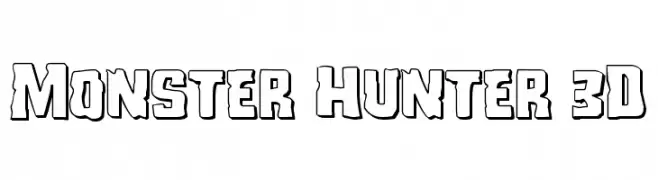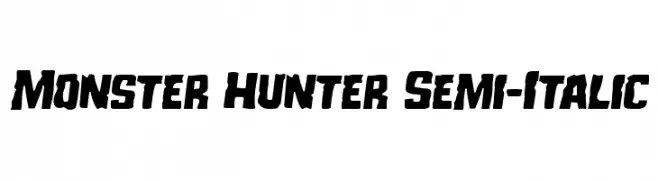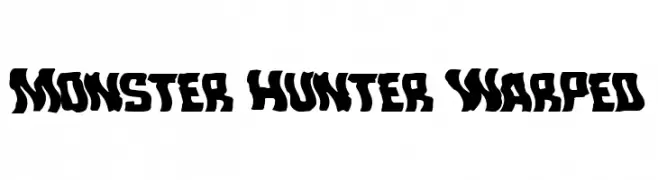
A bold, rugged font with thick, uneven strokes and a hand-carved appearance.
A bold, 3D font with a playful and adventurous style, featuring thick outlines.
A bold, semi-italic font with a dynamic and aggressive style.
A bold, slanted font with a rugged and dynamic style.
A bold, rugged font with staggered, uneven characters for a dynamic look.
A bold, rugged font with thick, uneven strokes and a distressed look.
A bold, warped font with dynamic, adventurous letterforms.
A bold, staggered font with a dynamic and rugged style.
A bold, rugged, and condensed font ideal for impactful headlines.
A bold, italic, and dynamic font with sharp, angular characters.